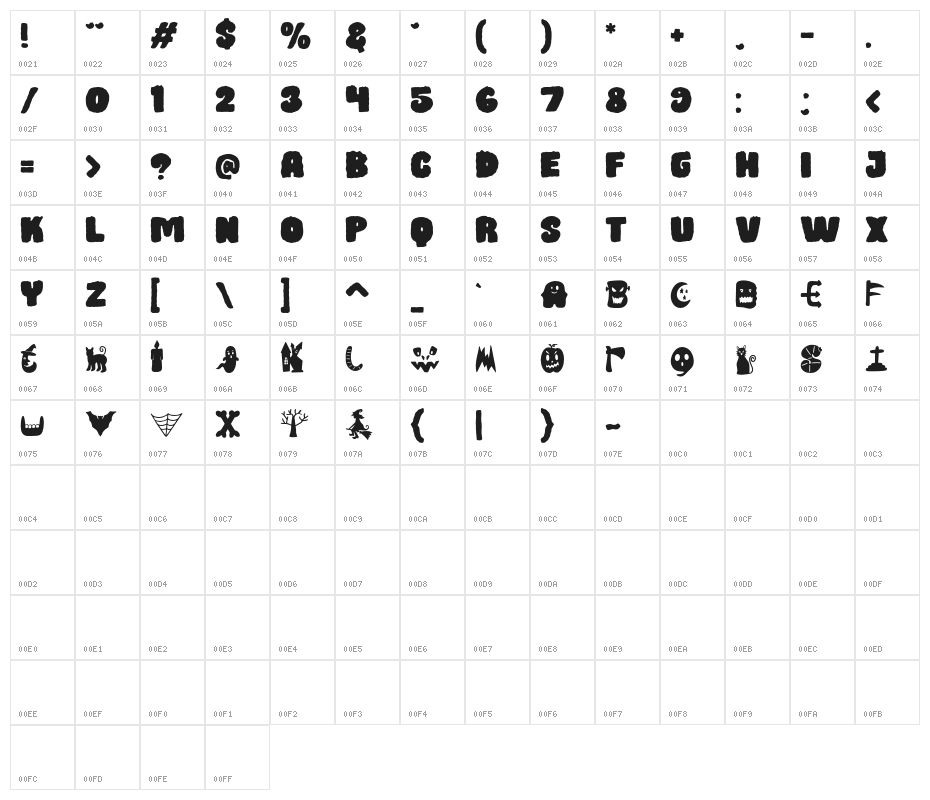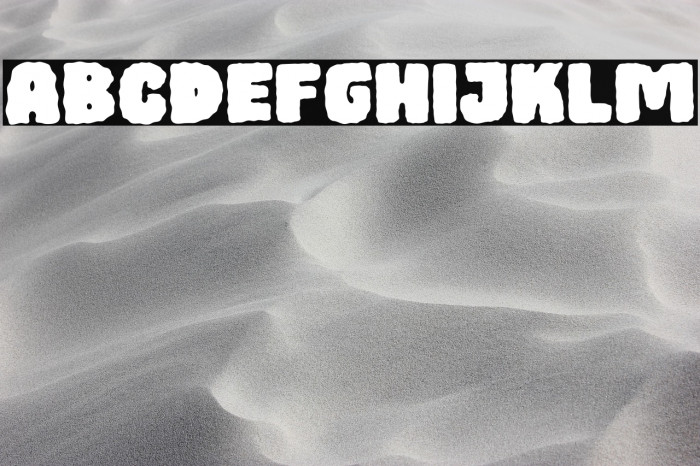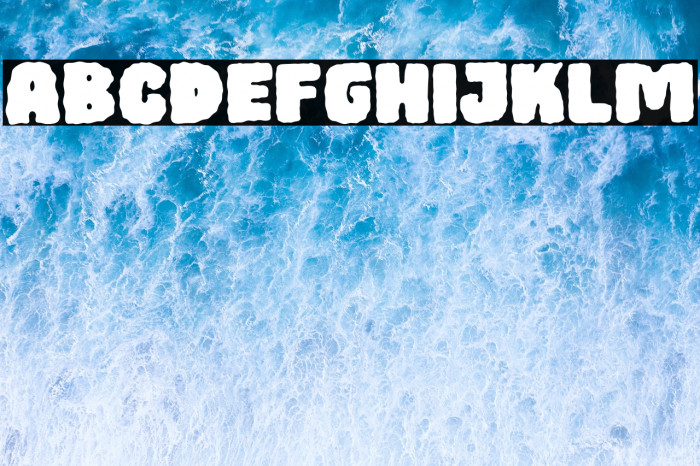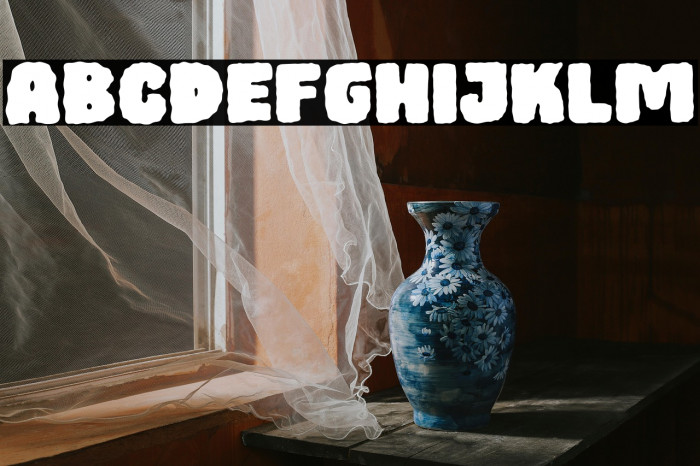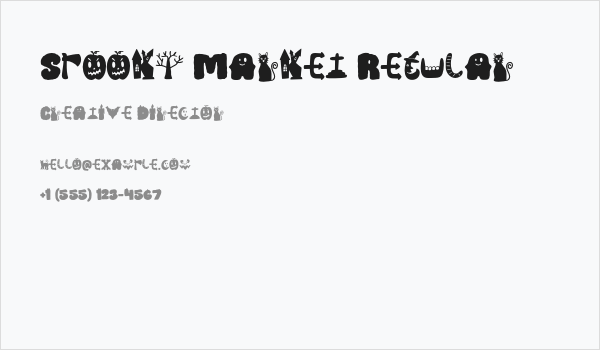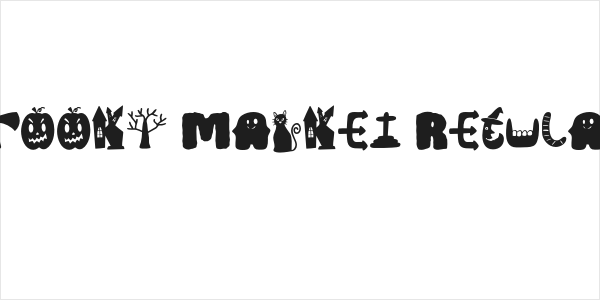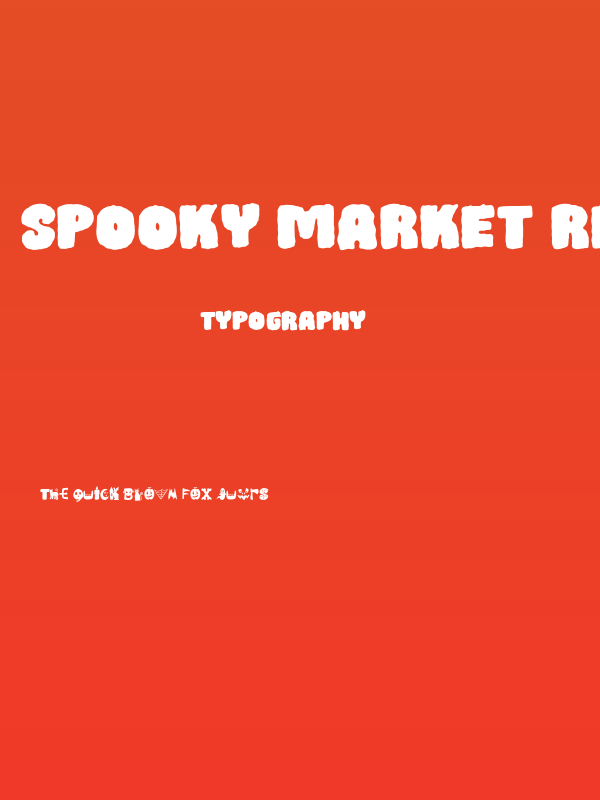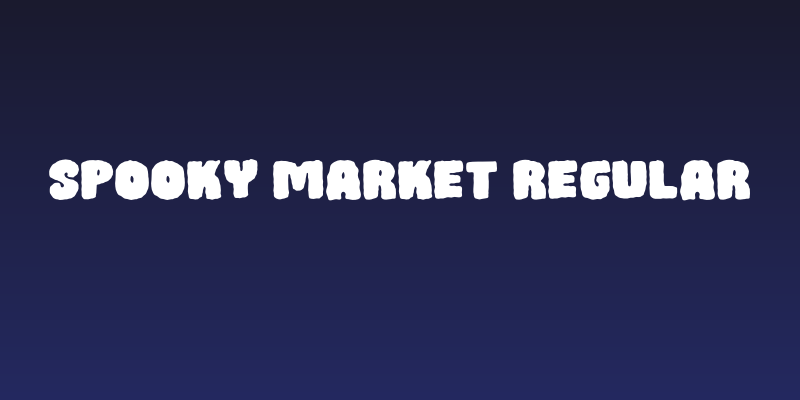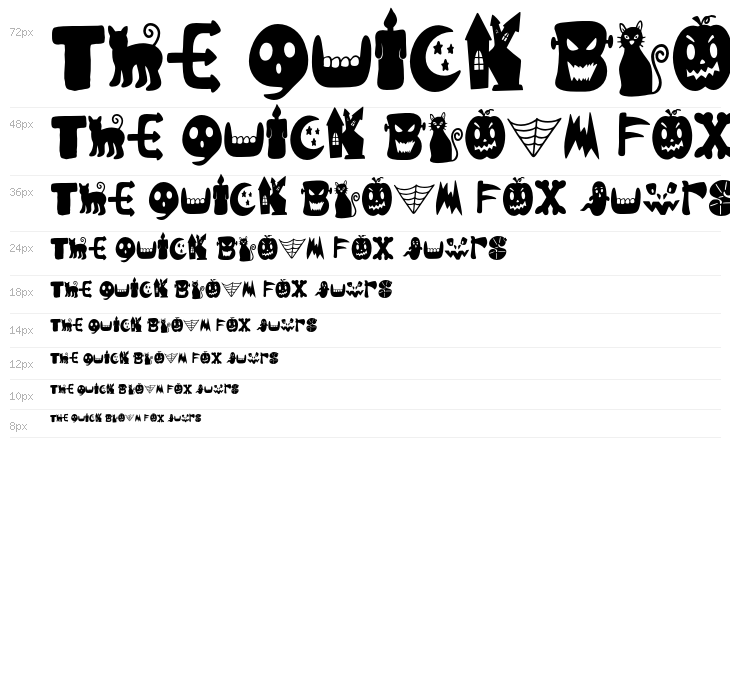
Spooky Market Regular Font
Spooky Market Regular Description
This font is a playful and spooky display typeface, perfect for Halloween-themed projects. Each character is creatively designed with elements like ghosts, bats, and pumpkins, adding a whimsical and eerie touch. The uppercase letters are bold and chunky, while the lowercase letters incorporate various spooky motifs. Numbers and special characters maintain the same playful horror theme, making it ideal for festive designs. The font's unique style captures the essence of Halloween with its imaginative and decorative elements.
| Proposed Projects | Ideal for Halloween invitations, party flyers, themed posters, and children's books. |